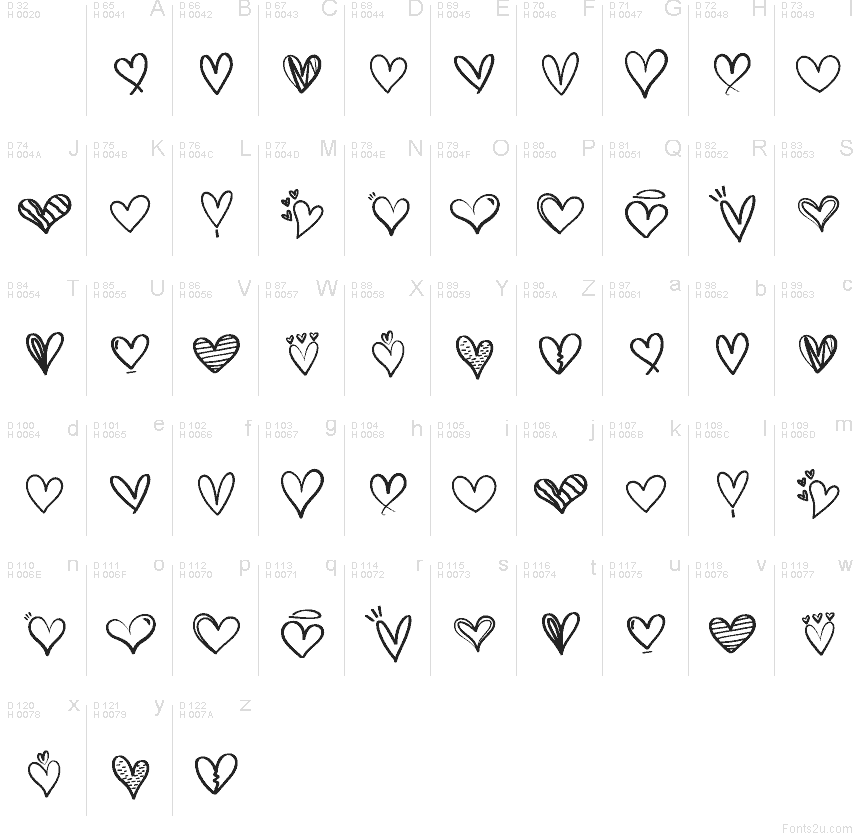
Handlove
Handlove font by Muhammad Yafinuha is a free dingbat typeface that turns simple keystrokes into playful, hand-drawn hearts. Each mark feels like it was sketched with a felt-tip pen-slightly wobbly lines, casual loops, striped fills, and tiny expressive details that keep it from ever looking generic or stiff. The variety of heart styles lets you sprinkle in affection without repeating the same symbol over and over.
Using Handlove, you can quickly add warmth to Valentine cards, wedding stationery, love notes, social posts, planner stickers, and packaging for gifts or sweets. This free font works beautifully as accent graphics alongside a clean sans serif-set your text small and keep the hearts larger, like little hand-drawn stamps that guide the eye and underline the message.